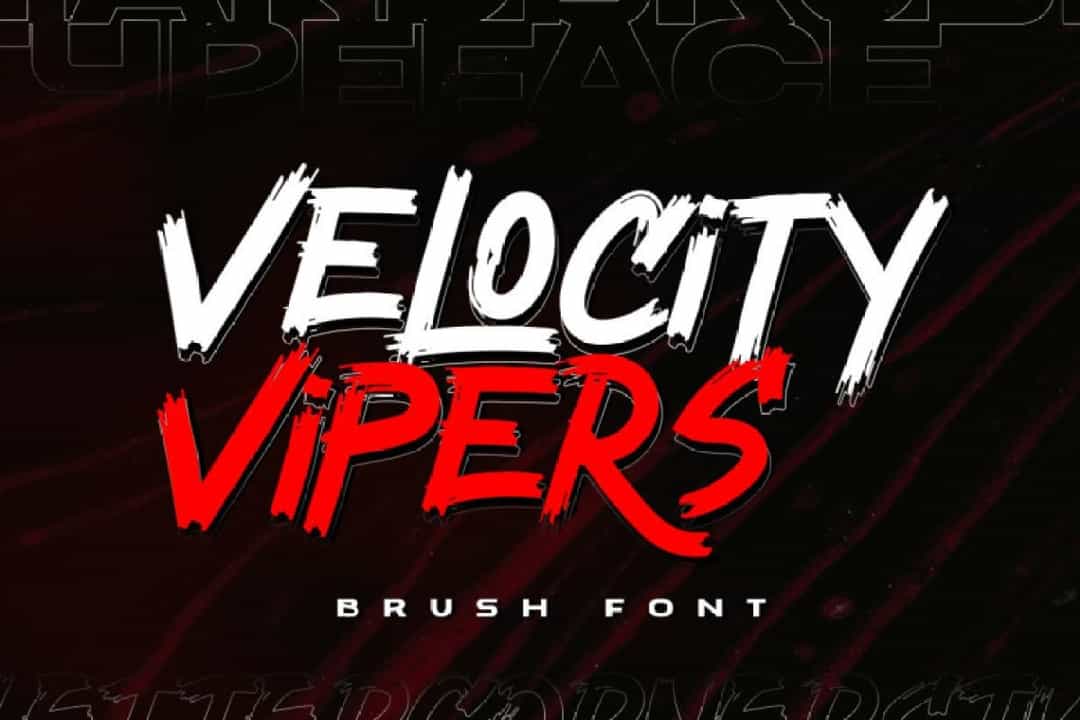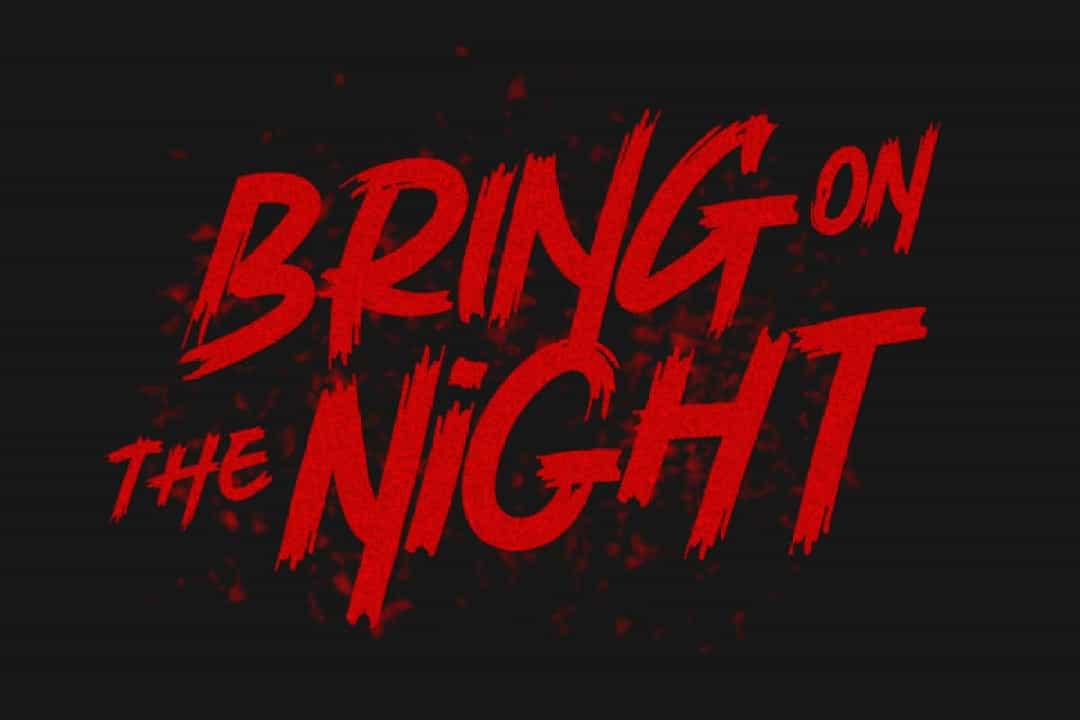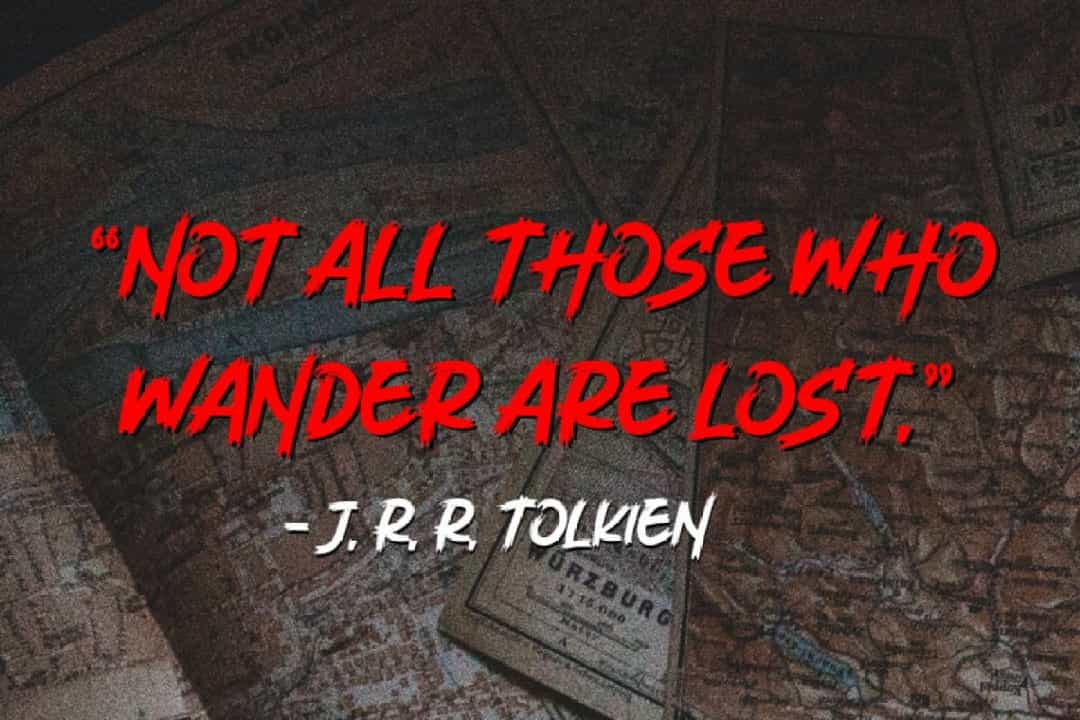
Velocity Vipers is an handwriting brush effect font and sans font with an appearance similar to real handwriting, inspired by urban fashion and designed for branding projects of various kinds. Ideal for logo design as well as invitations, photography advertising watermarks products stationery wedding designs labels packaging for products special occasions Velocity Vipers has many potential uses!